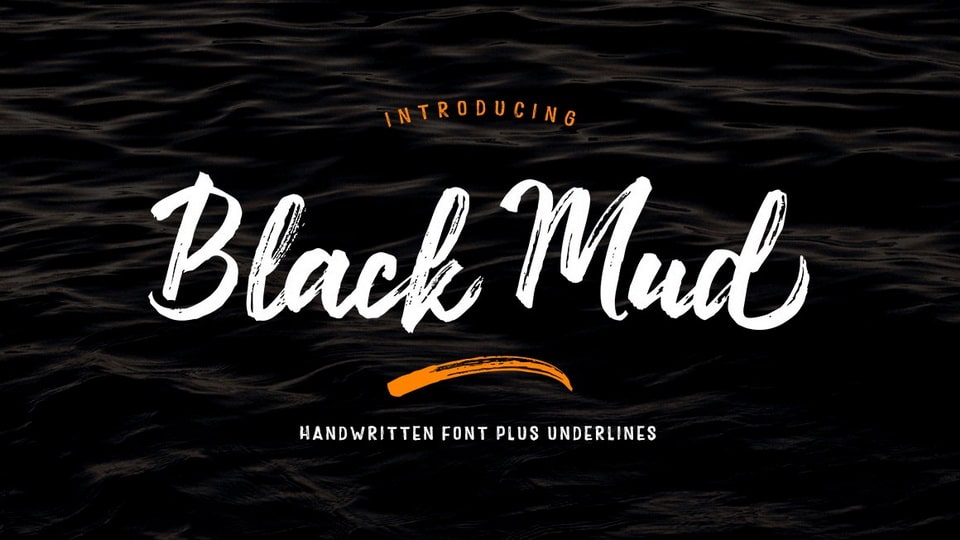
Download Black Mud font, a result of a stunning pairing of a brush pen and pencil. This handwritten font looks both distinct and elegant and fits a wide variety of designs.